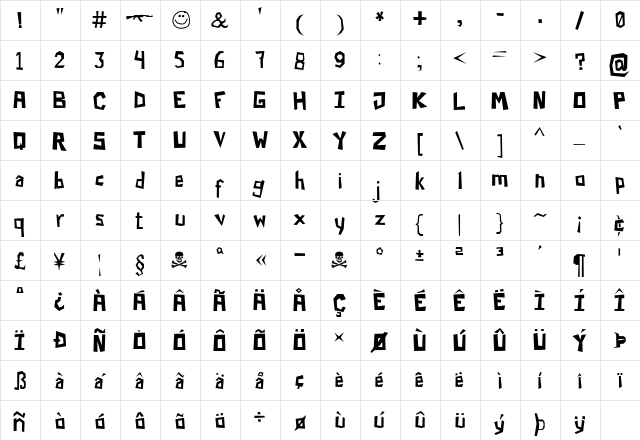
Paper Cuts Regular
| Foundry | Daniel Poeira |
| Designer | Daniel Poeira |
Design Context for Paper Cuts Typeface
Paper Cuts is a composed and adaptable typeface that performs quietly and consistently across a wide range of design contexts.